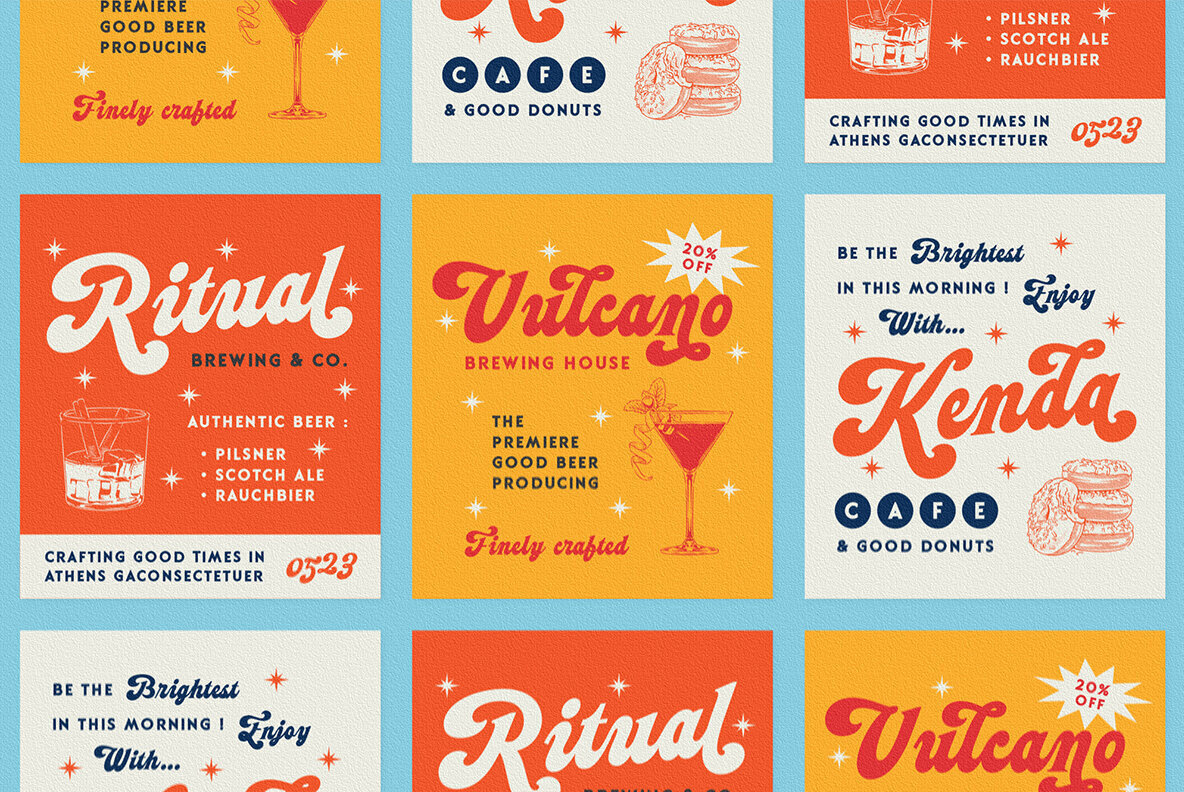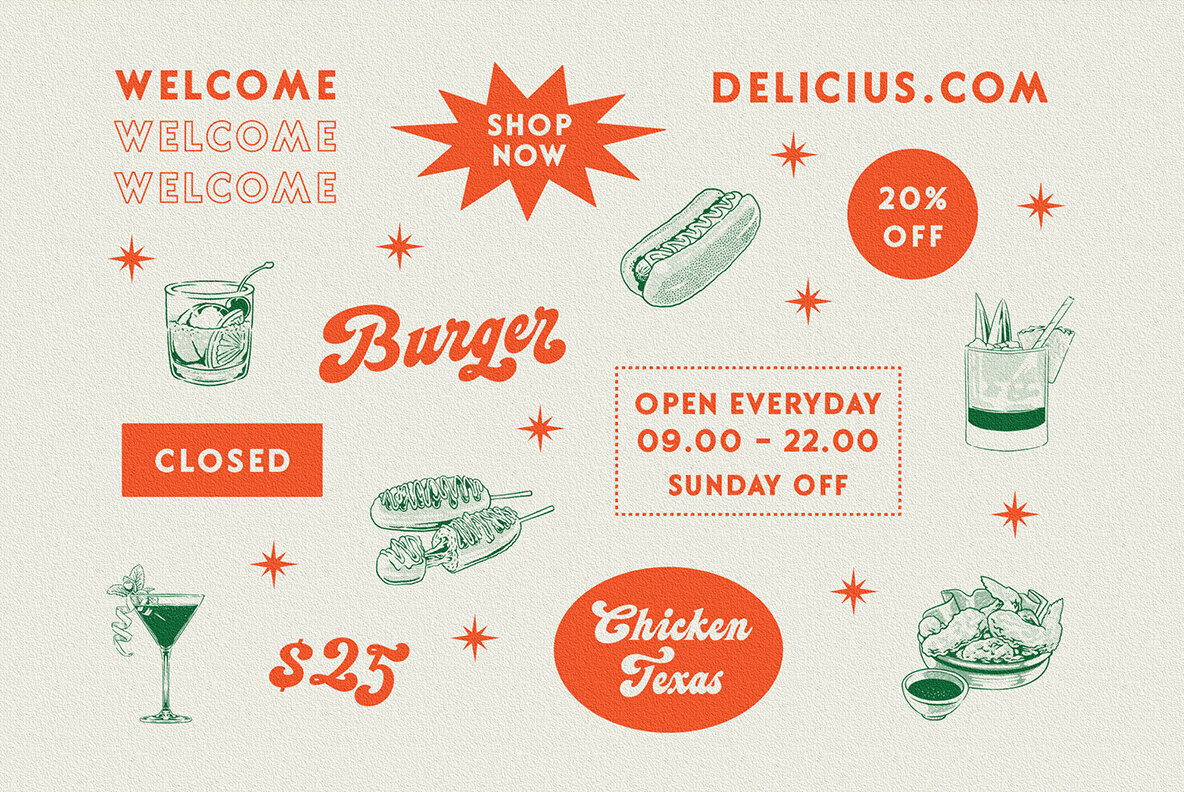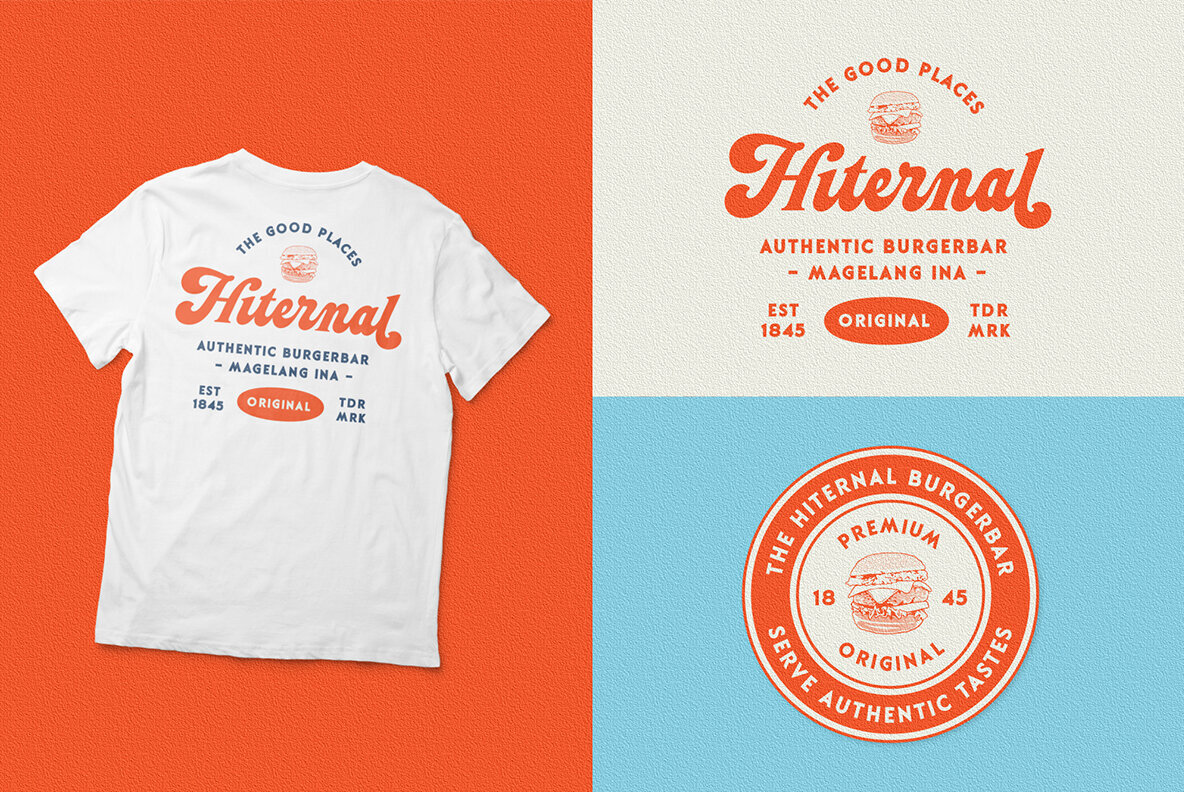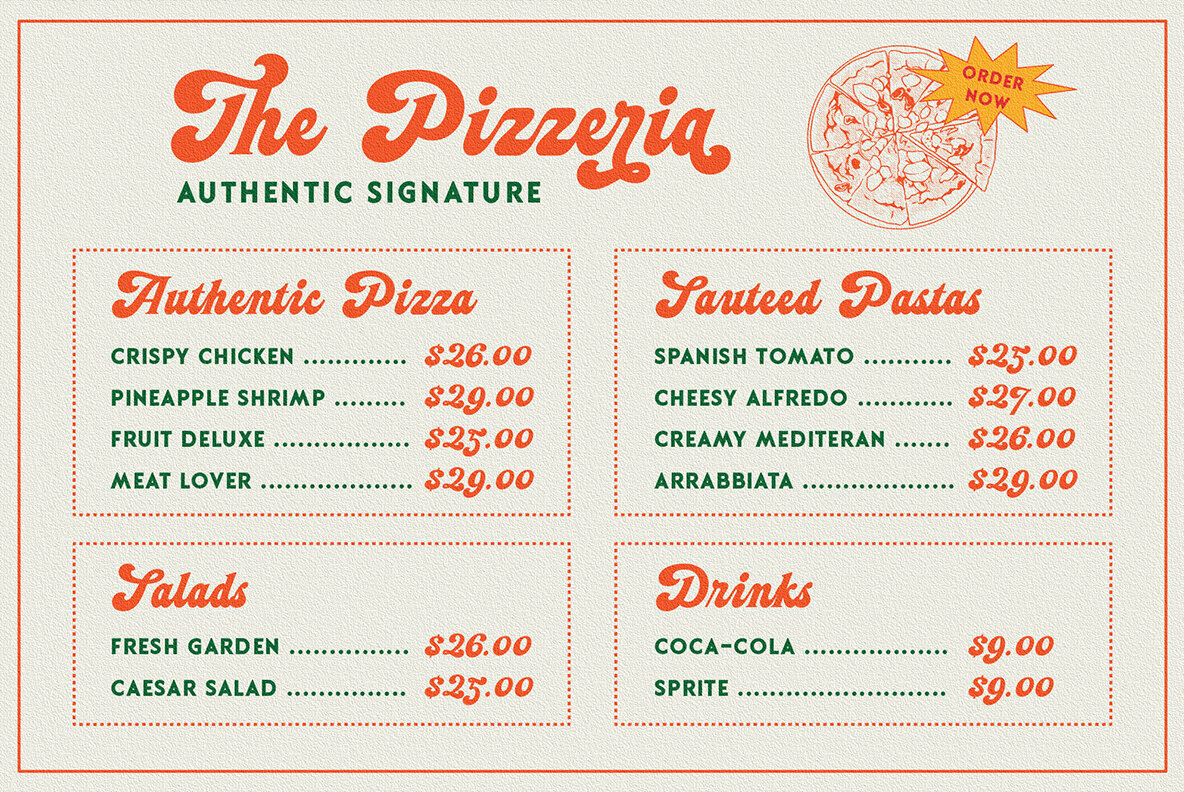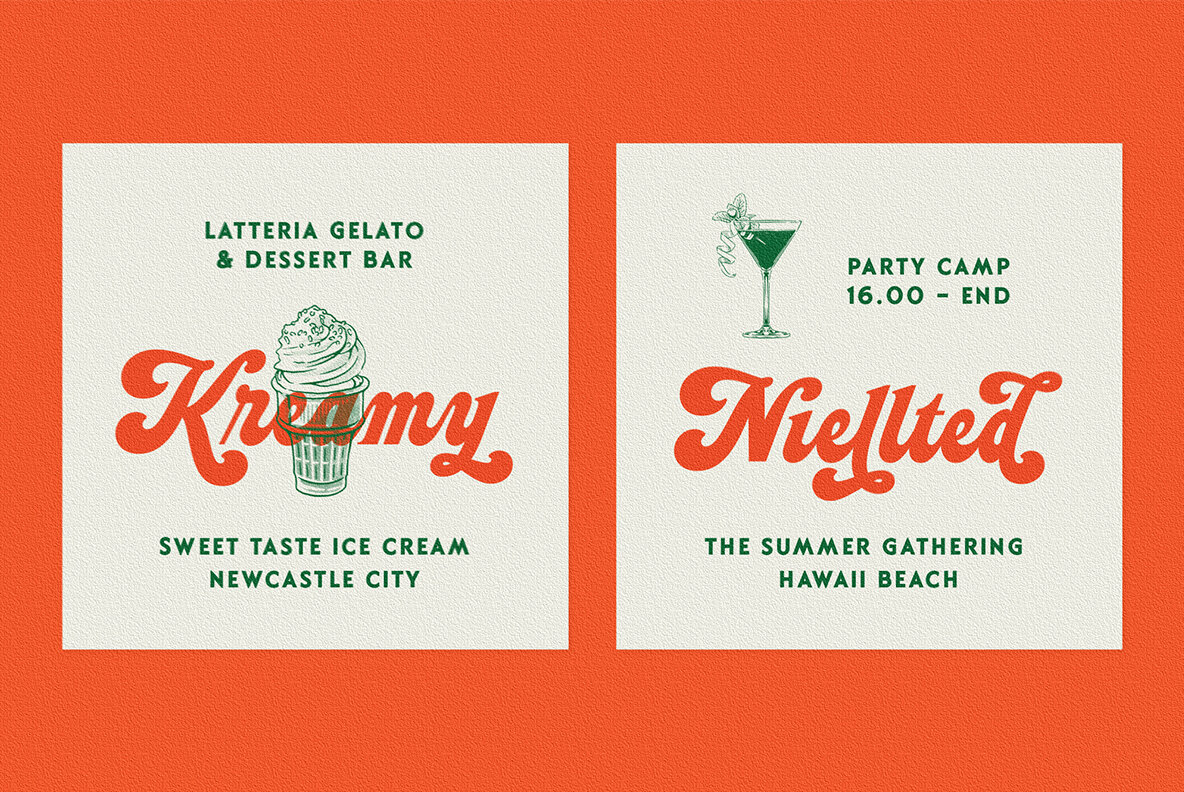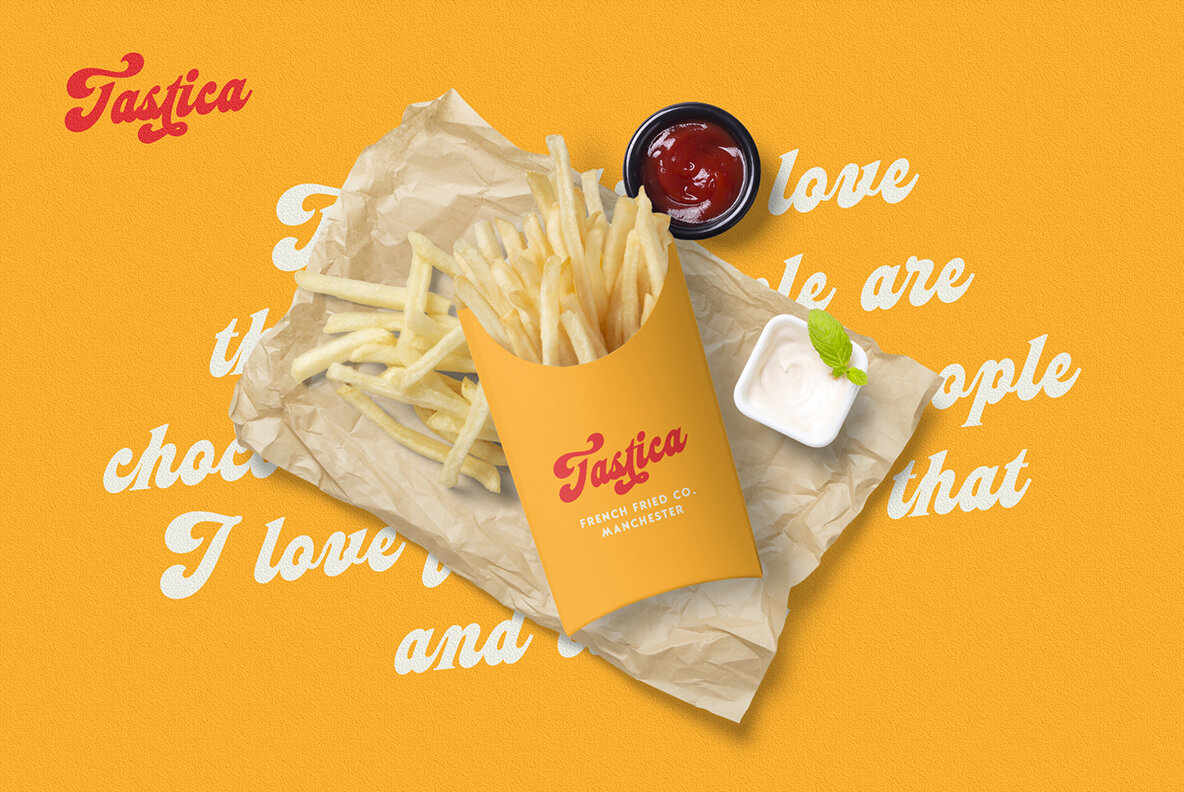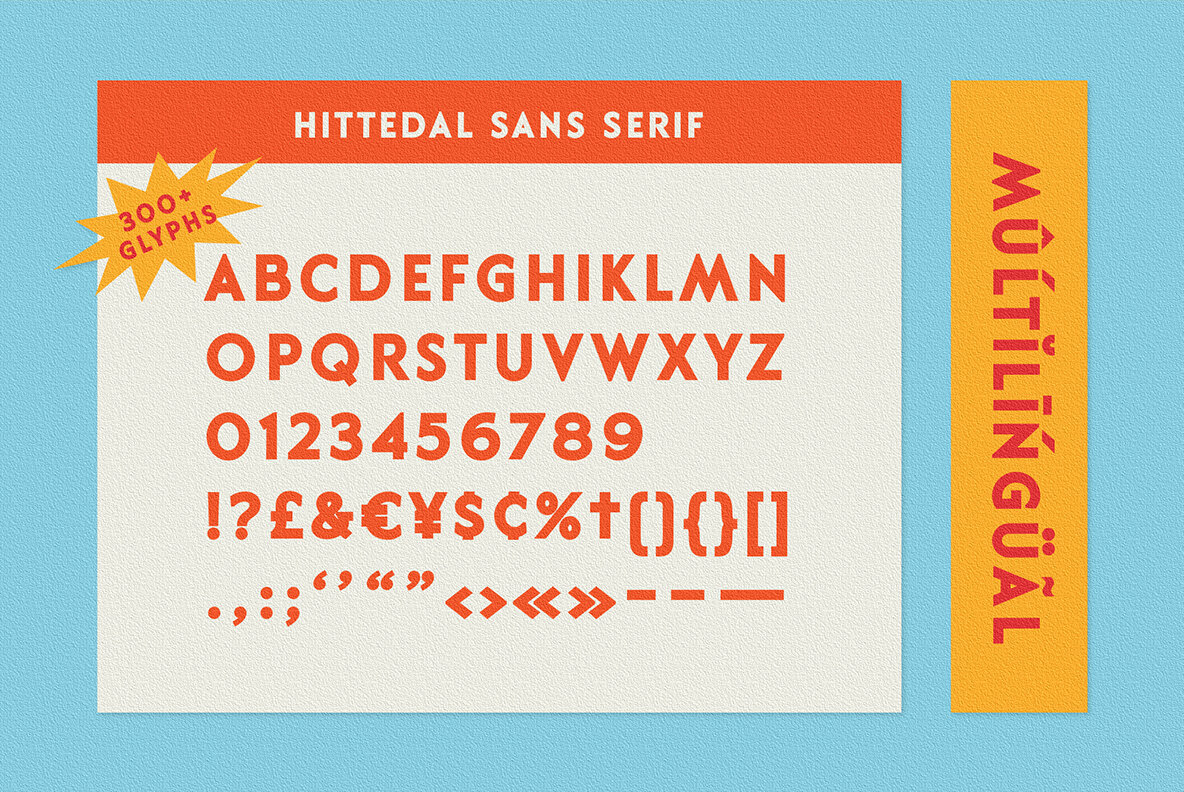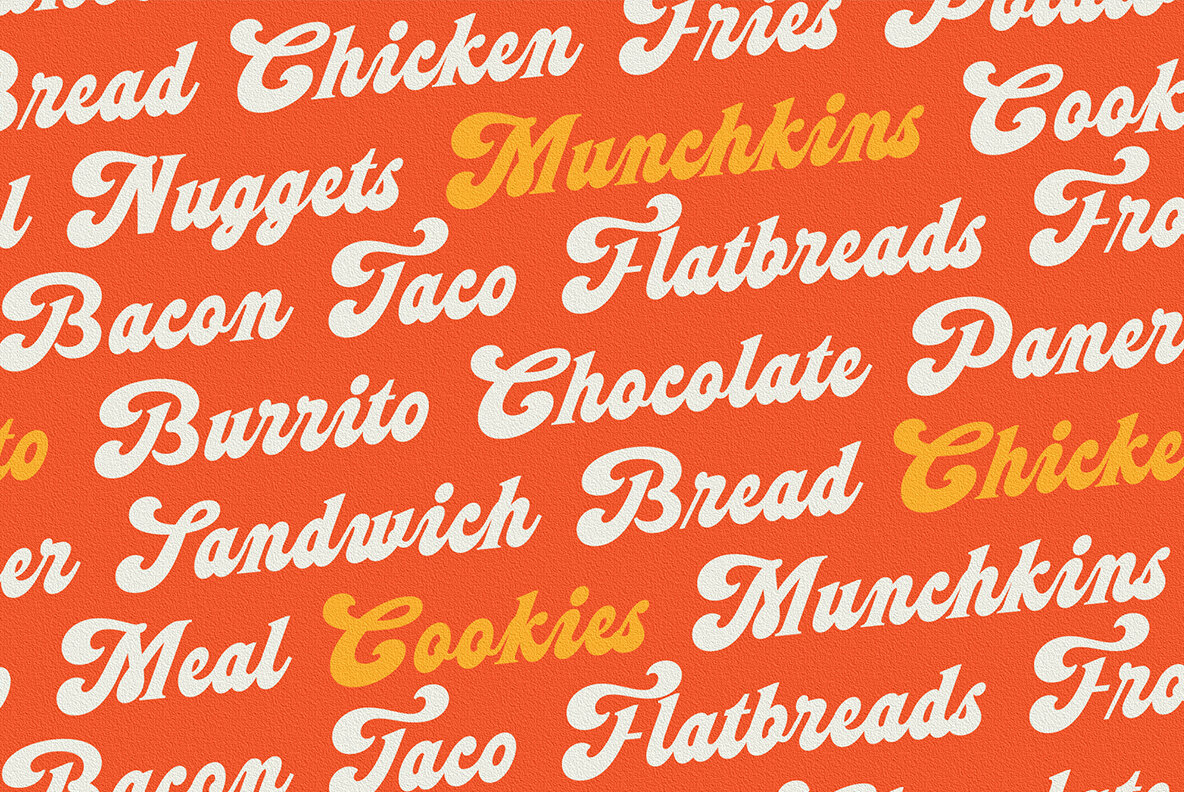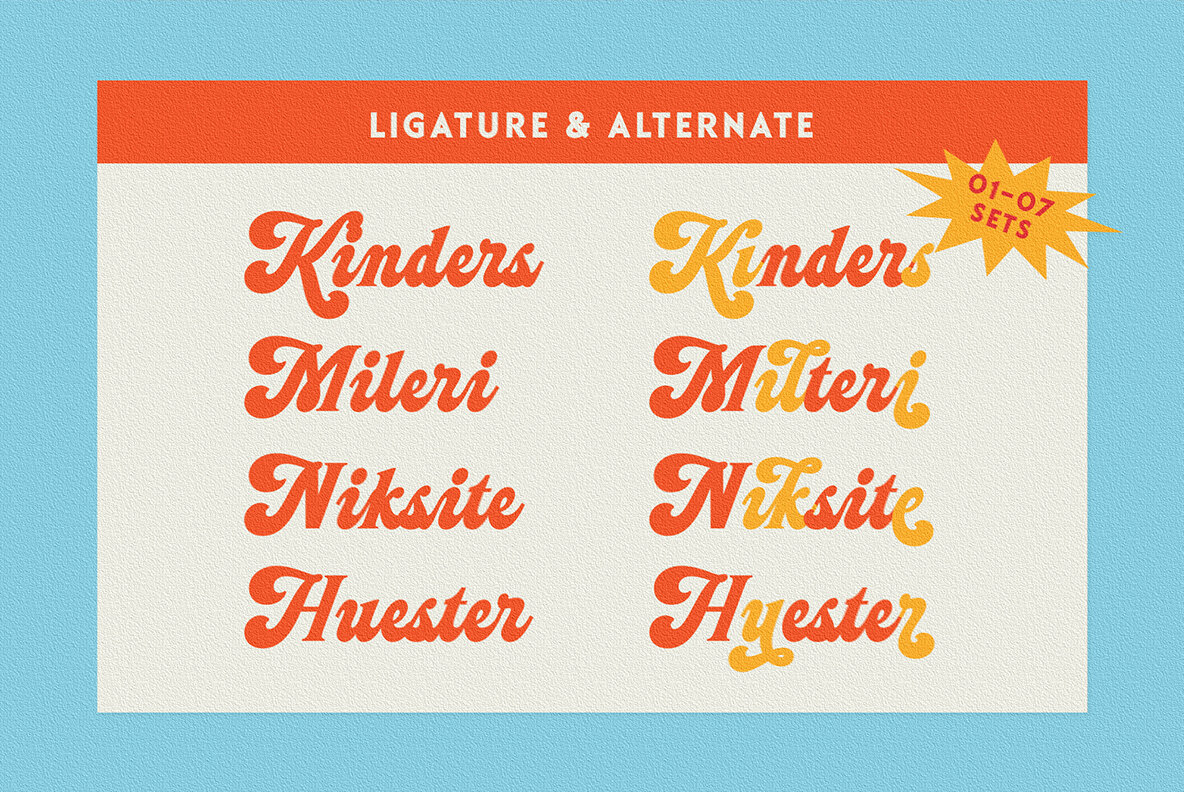
Hittedal Font
Hittedal Sans
Hittedal Script
The Hittedal font collection, crafted by Edi Gunawan, offers a versatile blend of bold script and sans serif styles. Ideal for creating memorable logotypes, this collection enhances various design projects such as logos, posters, labels, and product packaging. Its broad functionality makes it a go-to choice for t-shirts, branding, and custom design work. Features:Hittedal: Distinct Display Fonts for Versatile Design